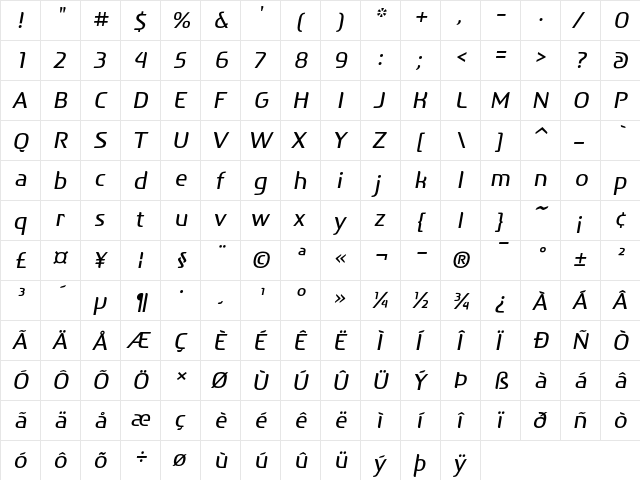
After Text Light Italic Font Preview
| Designer | Fabio Luiz Haag |
Design Context for After Text Light Typeface
After Text Light is a composed and adaptable typeface that performs quietly and consistently across a wide range of design contexts. The dynamic lean of this cut emphasises speed and emphasis in any layout. Its slender proportions lend an understated elegance to any composition.
Pro Tip: Try After Text Light for annotation and caption copy alongside an upright companion — the contrast in angle creates a dynamic but ordered typographic system.